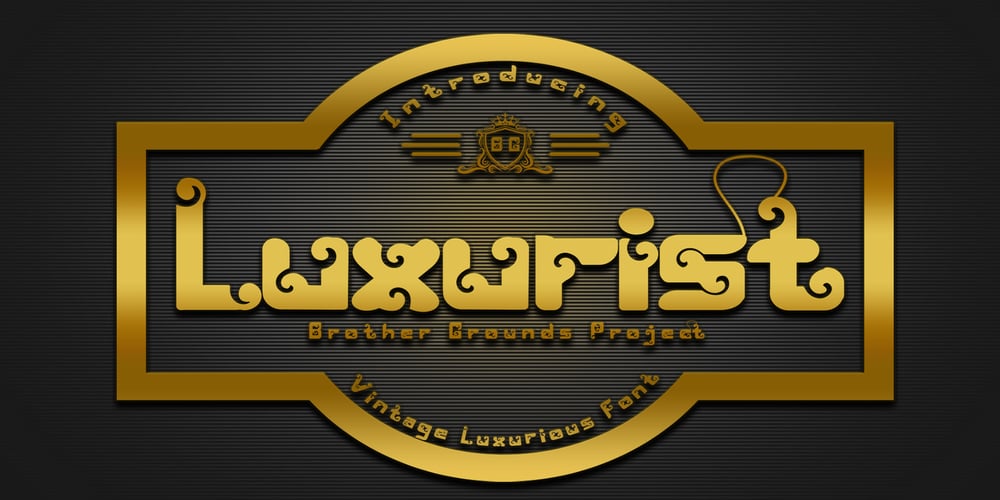
Luxurist Vintage Font Family was designed by Rizki Kurniawan and published by Brothergrounds Studio. Luxurist Vintage contains 1 styles and family package options. Introducing our latest display typeface called Luxurist Vintage – Display Vintage Serif with Ligatures can make your logotype become more interesting. Best Vintage font with special ligatures and multilingual support. inspired by the decorative arts and architecture movementLuxurist Vintage fonts is perfect for your project and allows you to create designs, headlines, posters, logos, badges, t-shirts and many more that are beautiful. It is also best used for posts, logos, posters, certificates, labels and more